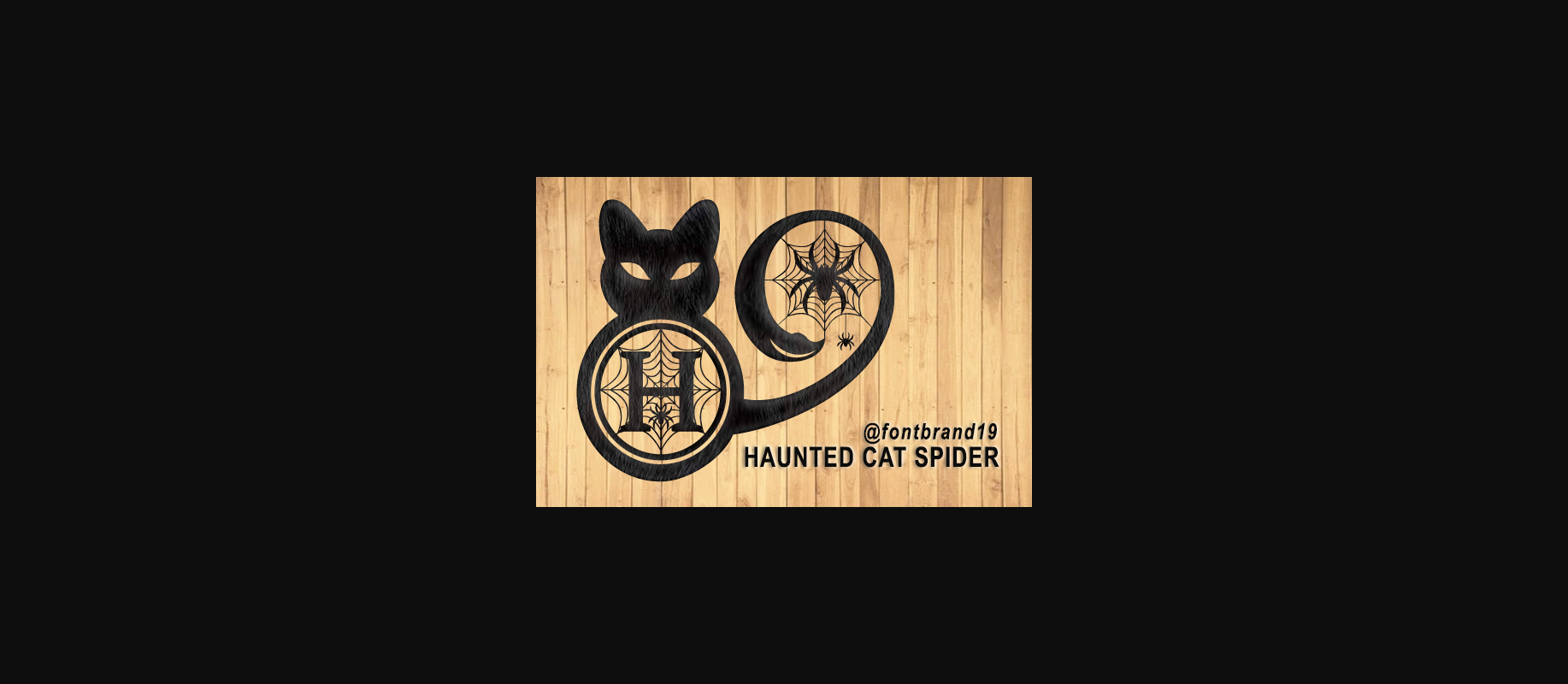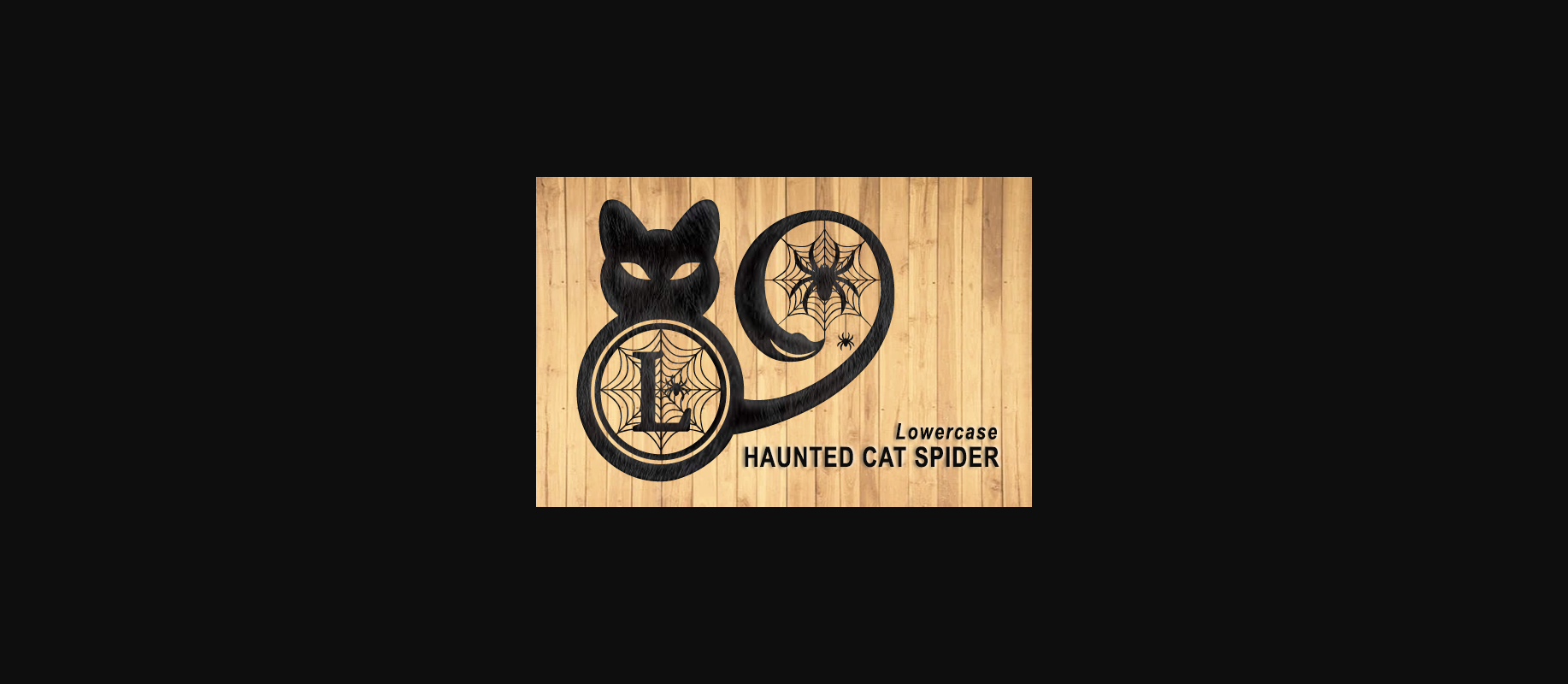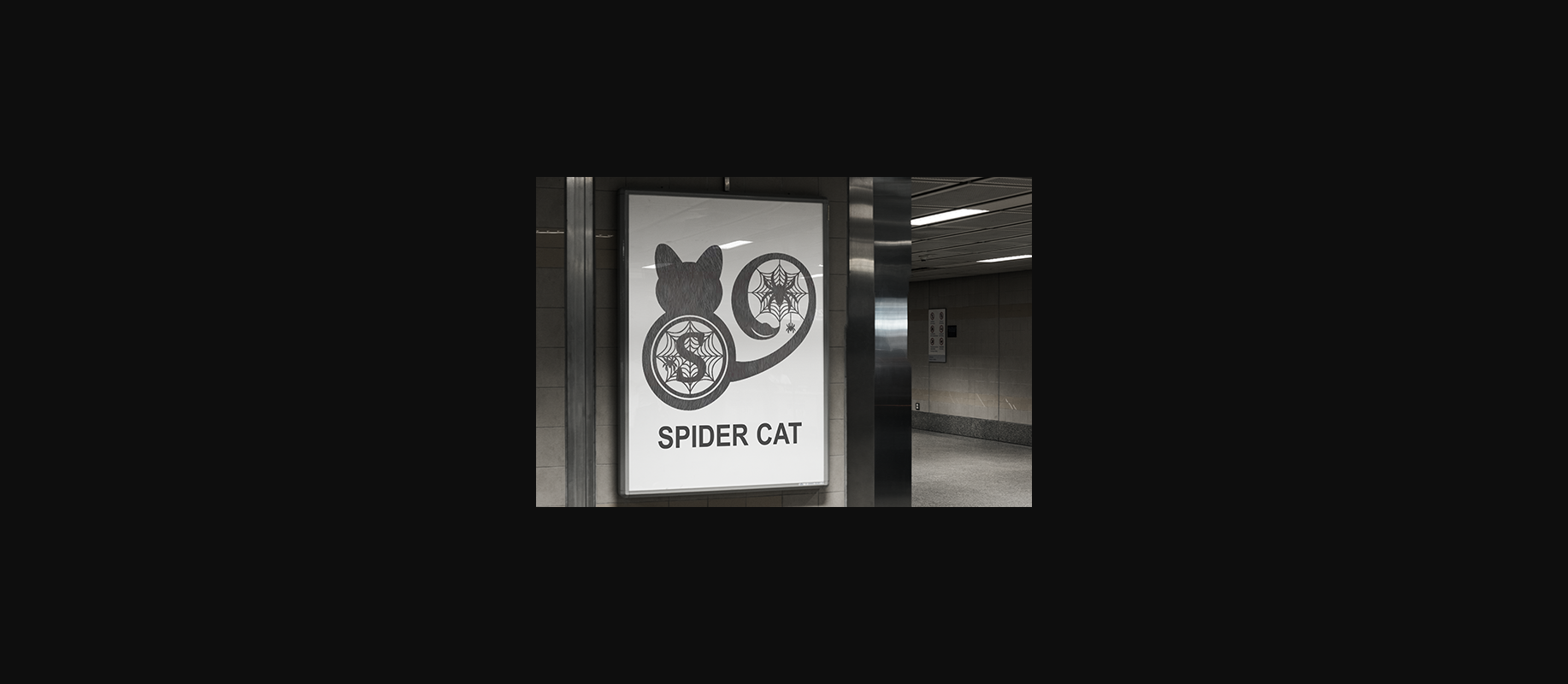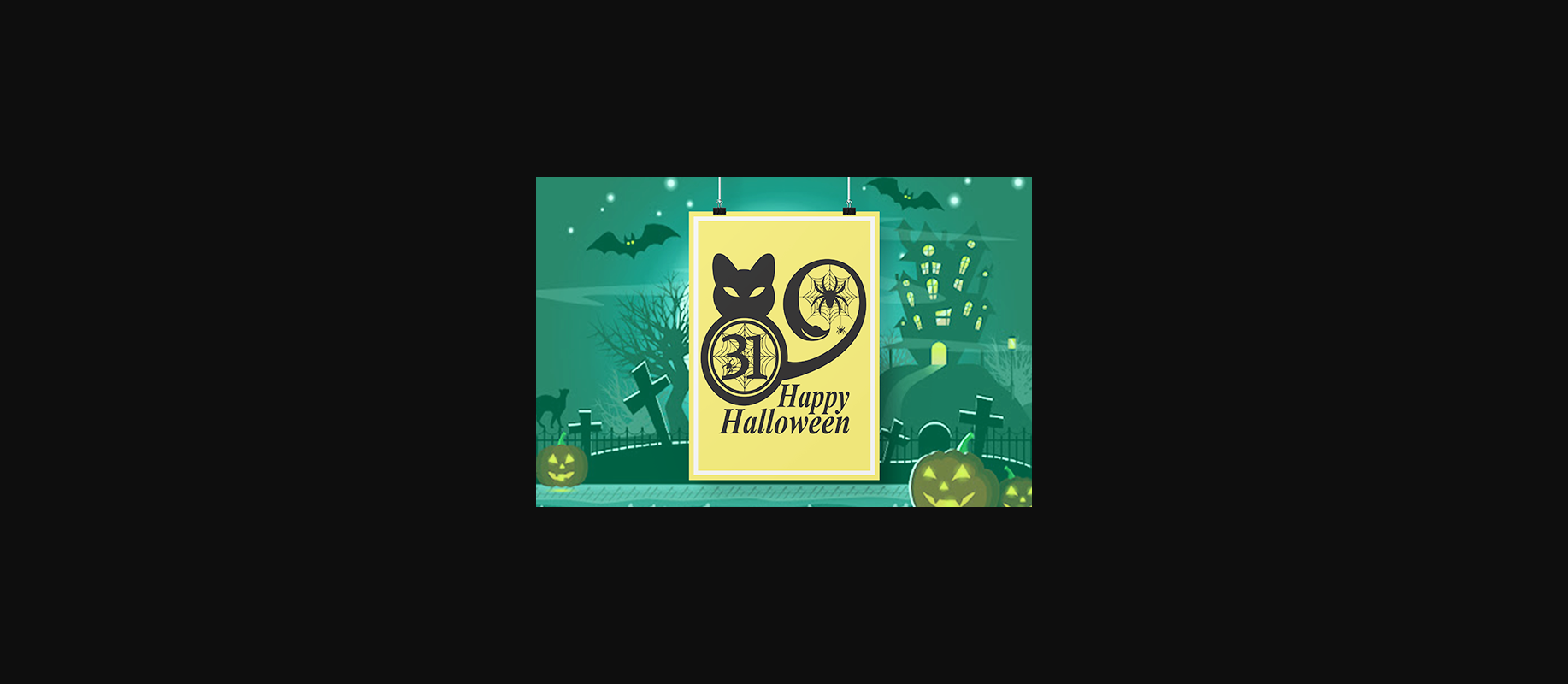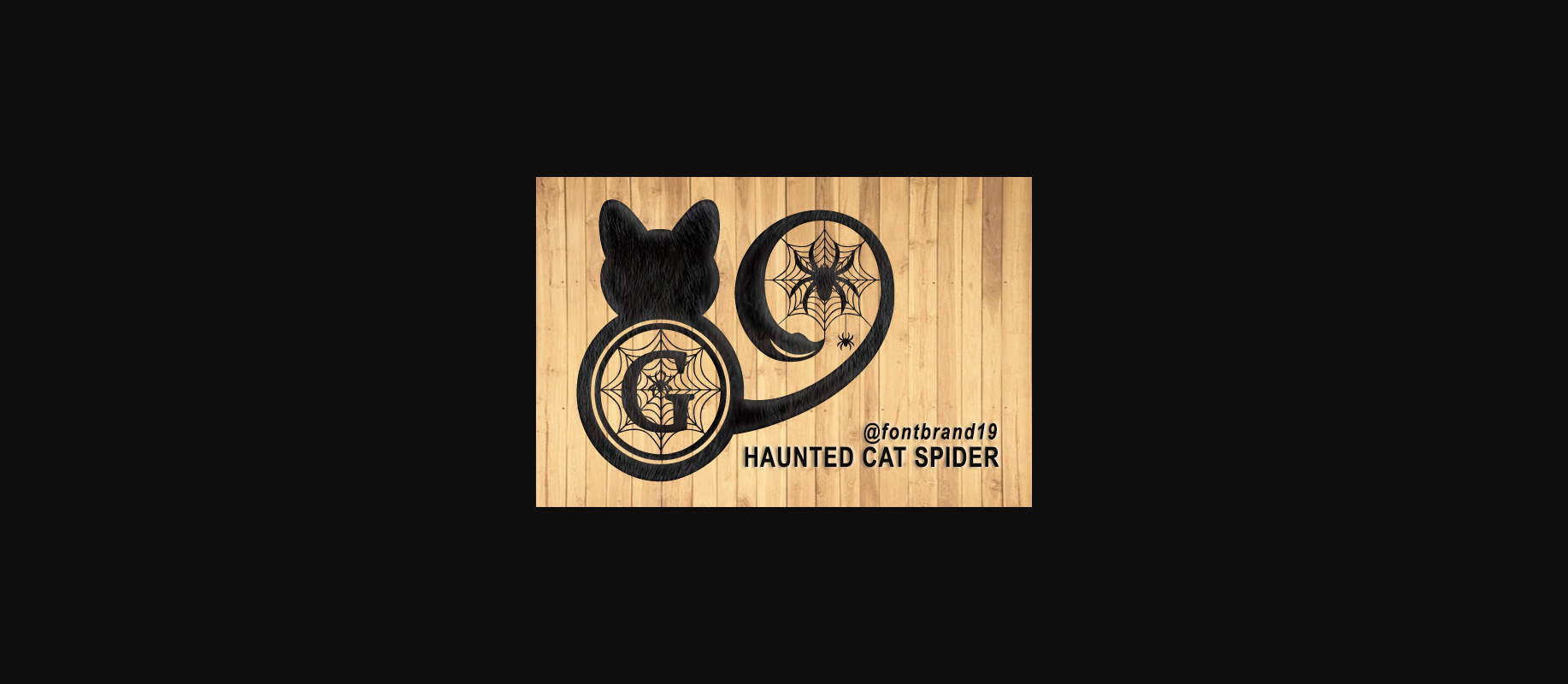
HomeDecorative FontsHaunted Cat Spider Font Decorative Fonts Haunted Cat Spider Font FacebookXPinterestWhatsApp 1 of 8 ... Haunted Cat Spider Font Poster 2... Haunted Cat Spider Font Poster 3... Haunted Cat Spider Font Poster 4... Haunted Cat Spider Font Poster 5... Haunted Cat Spider Font Poster 6... Haunted Cat Spider Font Poster 7... Haunted Cat Spider Font Poster 8... About Haunted Cat Spider Font Haunted Cat Spider Monogram is an incredibly unique and spooky decorative font. Add it to each of your Halloween designs and make them stand out. DOWNLOAD NOW People also explored Petri Plate Font Sunflowing Font Roseliver Font Antiquarian Holiday Springs BTN Migrand Font Began Font Portugal Font Magnolia Font 369 0 TagsHaunted Cat Spider Font Previous articleMonogram Asoka FontNext articleMonogram Line Font LEAVE A REPLY Cancel reply Comment: Please enter your comment! Name:* Please enter your name here Email:* You have entered an incorrect email address! Please enter your email address here Website: Save my name, email, and website in this browser for the next time I comment. Personal Use Free Stereofidelic Personal Use Free Read more about this font Wintersoul Personal Use Free Read more about this font Tahu Font Personal Use Free Read more about this font Latifah Personal Use Free Read more about this font BLOG 5 Fonts That Will Dominate Design Trends in 2026 5 Fonts for 2026 That Will Dominate Design Trends Typography plays a critical role in visual communication, and as we look ahead to 2026, it’s... Modern Sans-Serif Fonts That Brands Love in 2025 Free vs Paid Fonts: Why Investing in Premium Fonts Is Worth It Best Fonts for YouTube Videos: Make Your Thumbnails Stand Out